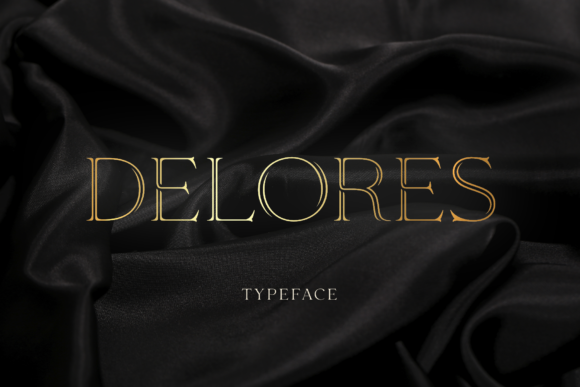
Delores is a luxurious and delicate display font. This font is PUA encoded which means you can access all of the glyphs and swashes with ease!
Fall in love with its incredibly versatile style and use it to create spectacular designs!